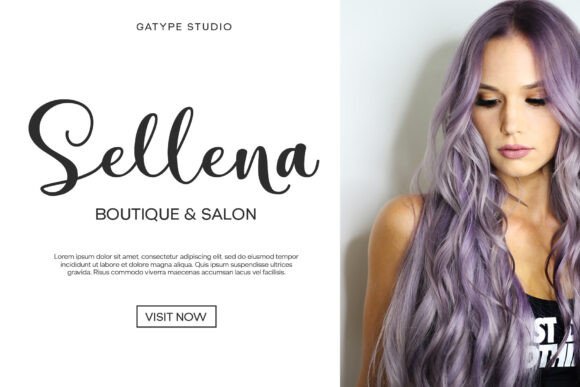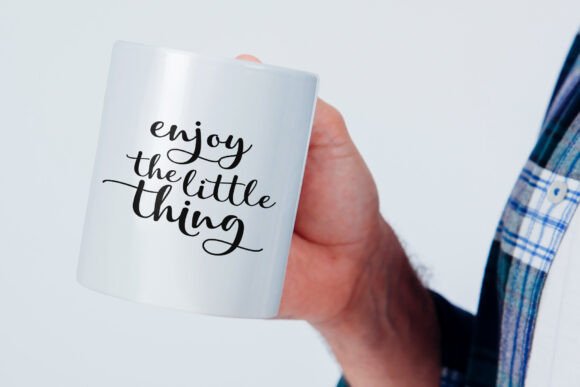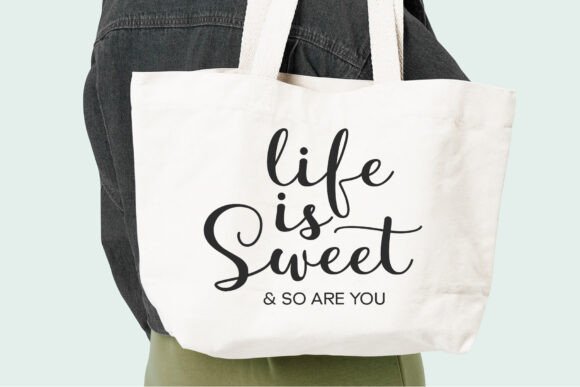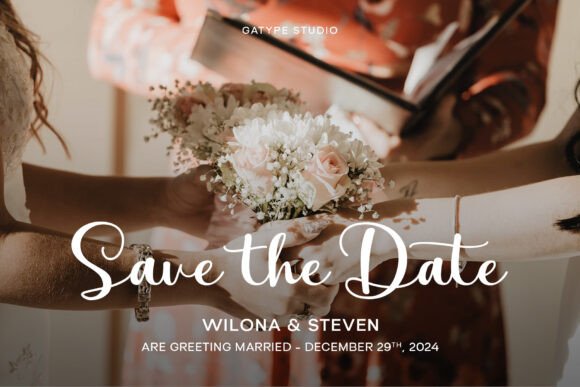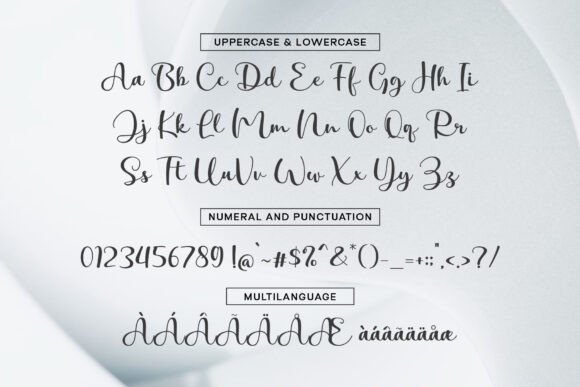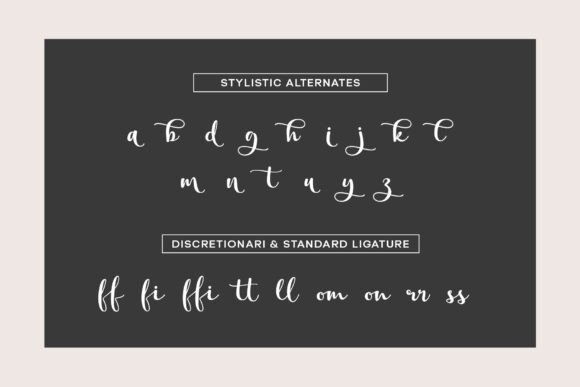
Introduction to Clamaty Font
Clamaty script is font characterized by its elegant and feminine style.
This font is typically used for designs that require a delicate and beautiful touch, such as wedding invitations, branding, or other creative projects The letterforms flow smoothly with varying thickness, adding an artistic feel.
Key Features of Clamaty Font